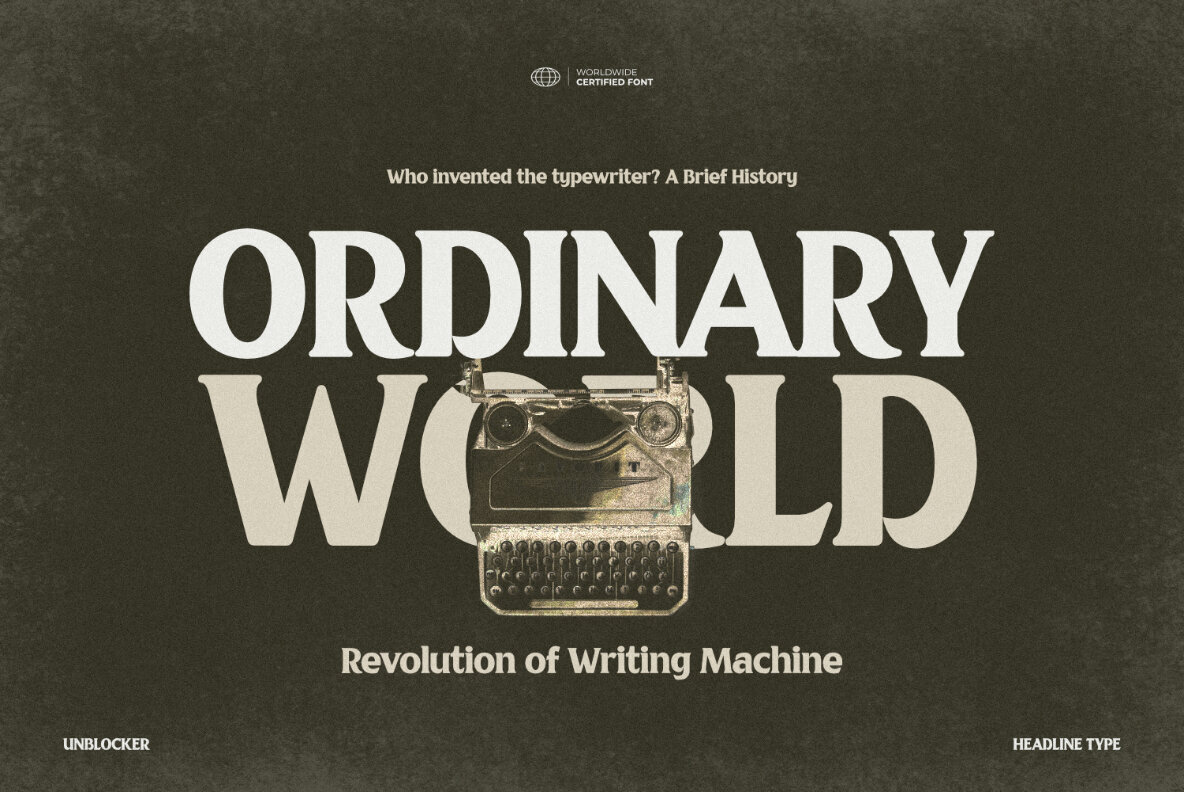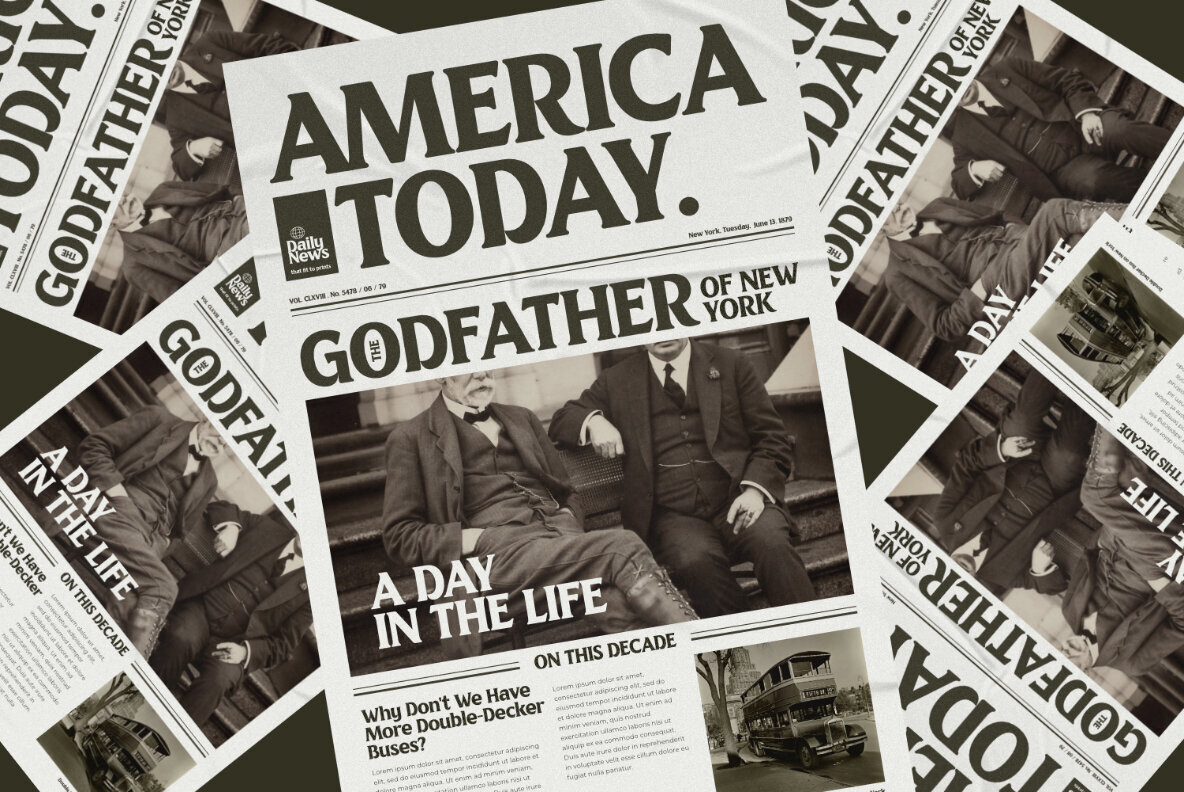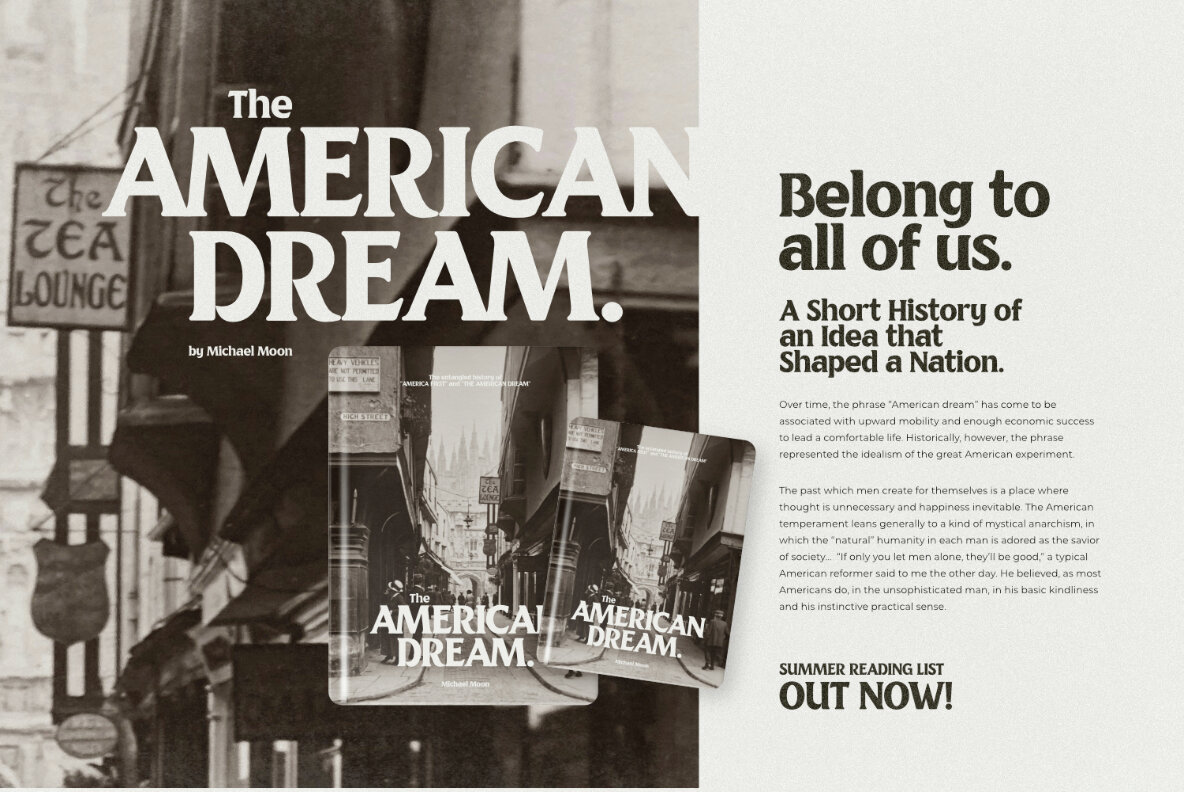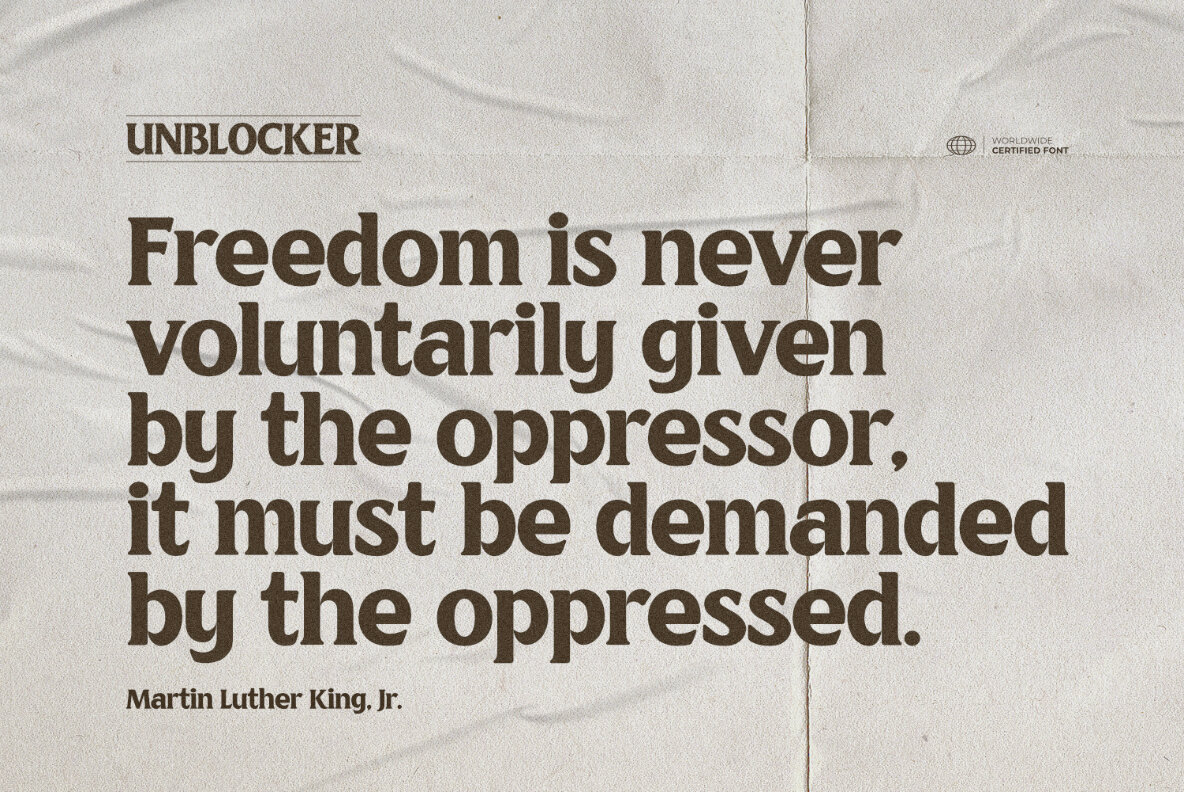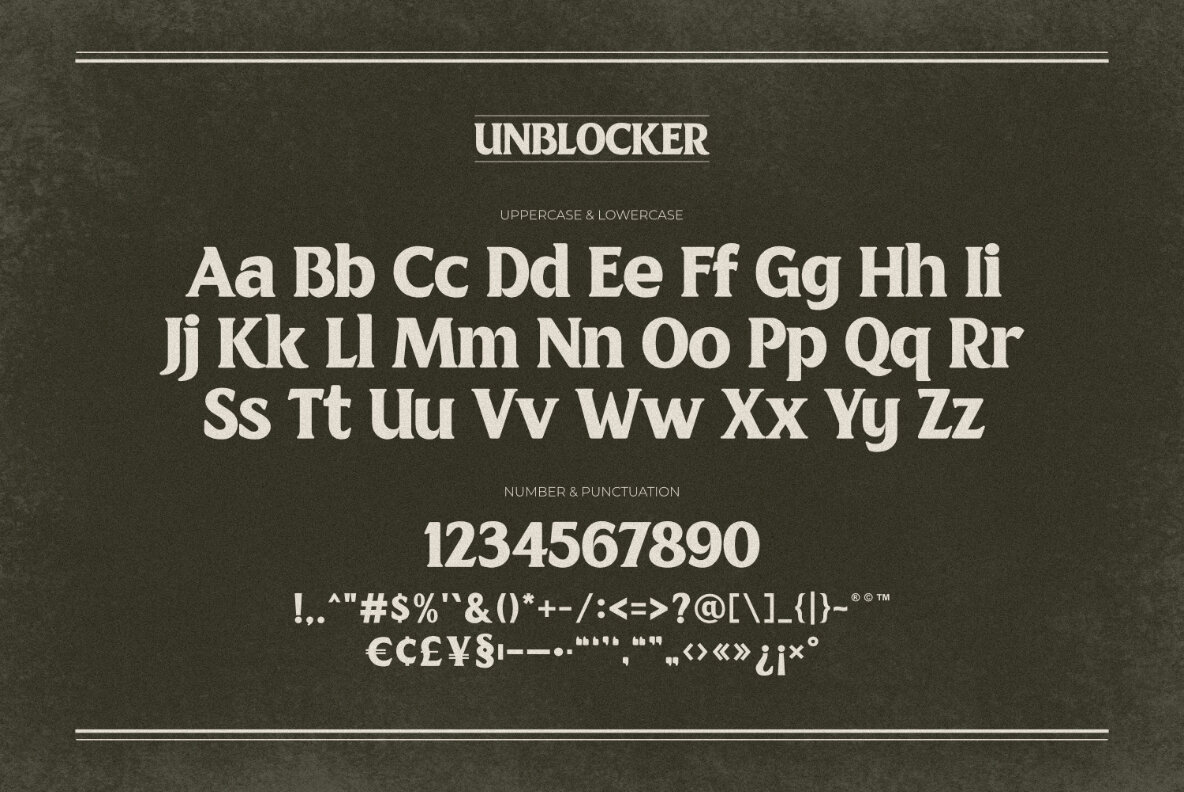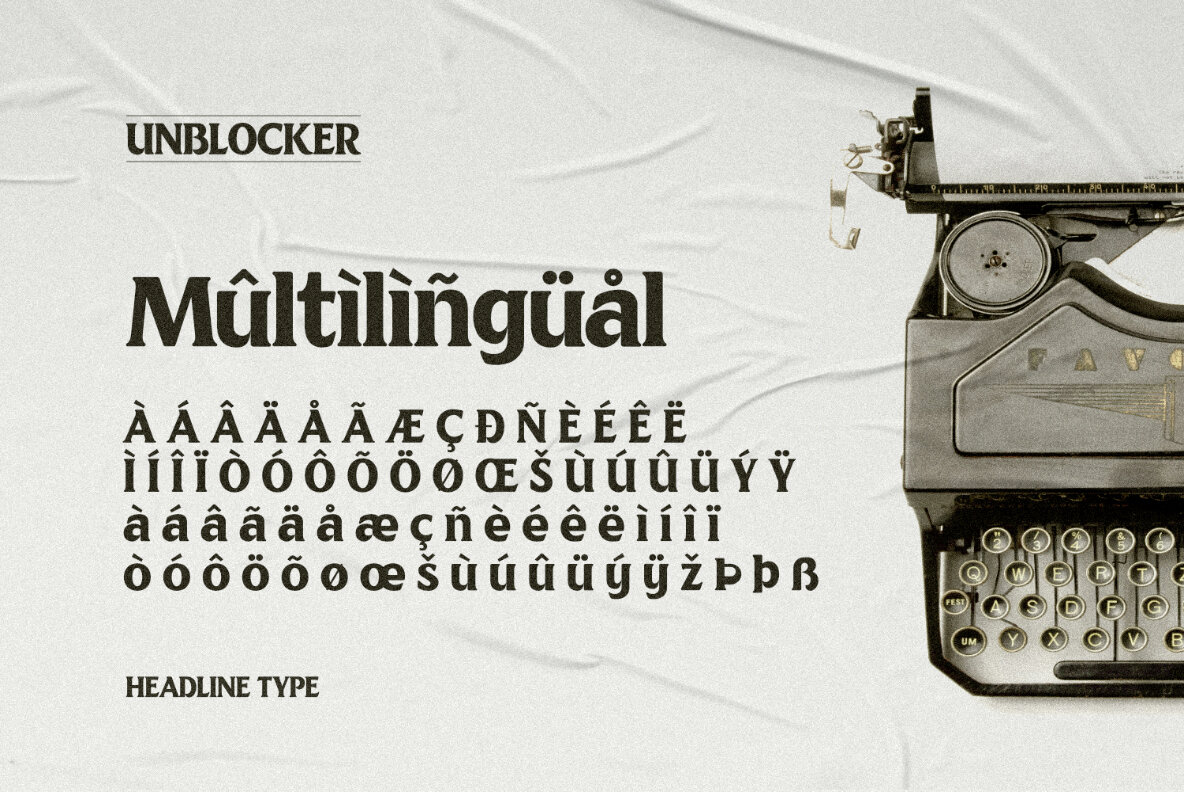
Unblocker Font
Unblocker Regular
Unblocker is a fascinating and dynamic headline typeface with a commanding presence and timeless elegance. Unblocker emanates a bold personality that draws the eye and demands attention. Each letter strikes a perfect blend of boldness and finesse. The finely weighted strokes offer a sense of stability, making it an excellent choice for imposing headlines, titles, and banners that need to make an impact. The distinct personality of Unblocker is ideal for a wide range of applications, from magazine layouts to branding collateral. Its intrinsic versatility allows it to mix in with a variety of design aesthetics, effectively improving the visual appeal of your projects. Unblocker provides you with a distinctive and bold typographic choice whether you're making a magazine cover, a logo, or eye-catching posters. This typeface is perfect for an headline design, newspaper layout, magazine cover, book cover, elegant logo, branding, packaging product, quotes, or simply as a stylish text overlay to any background image. What's Included?